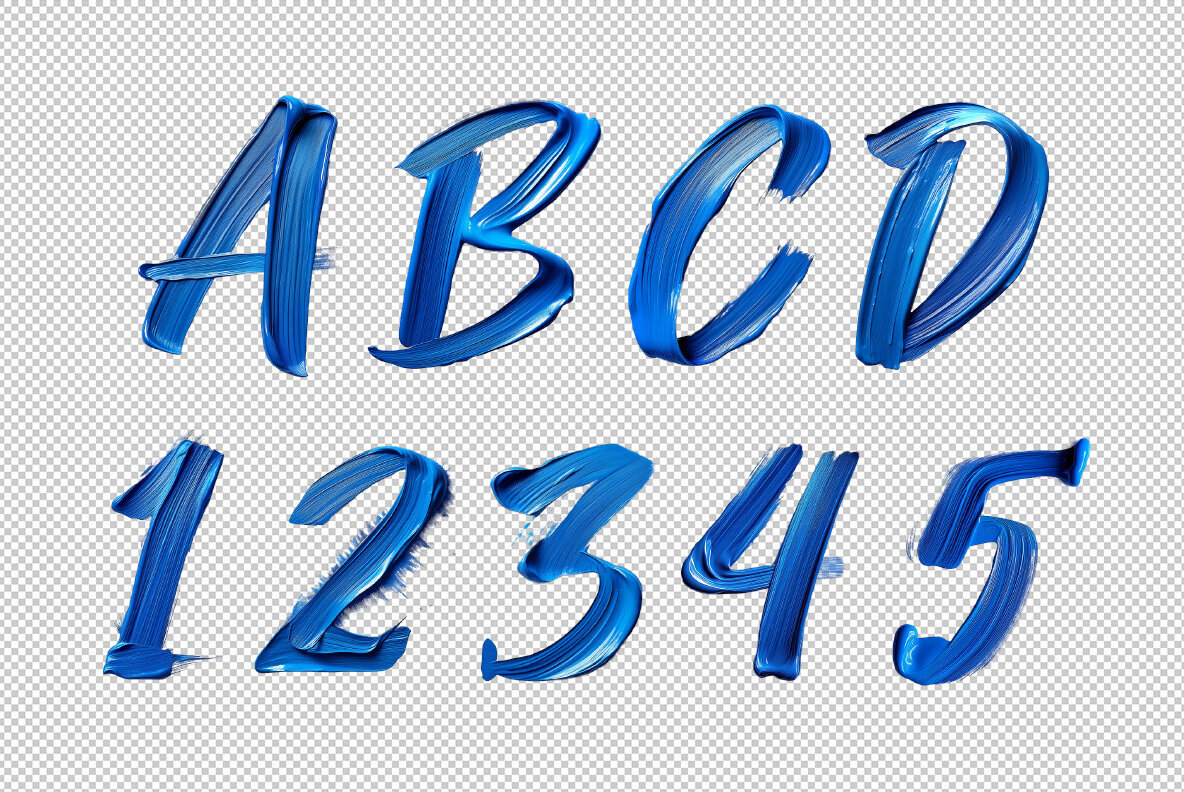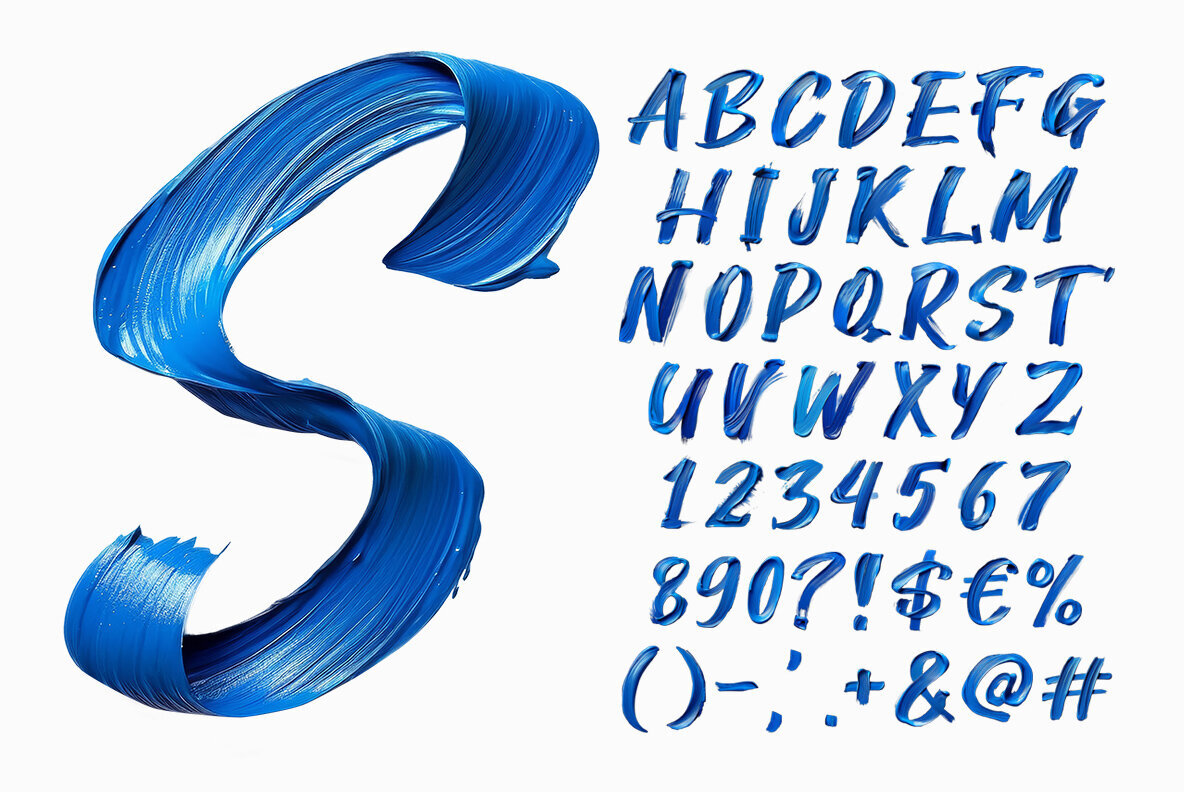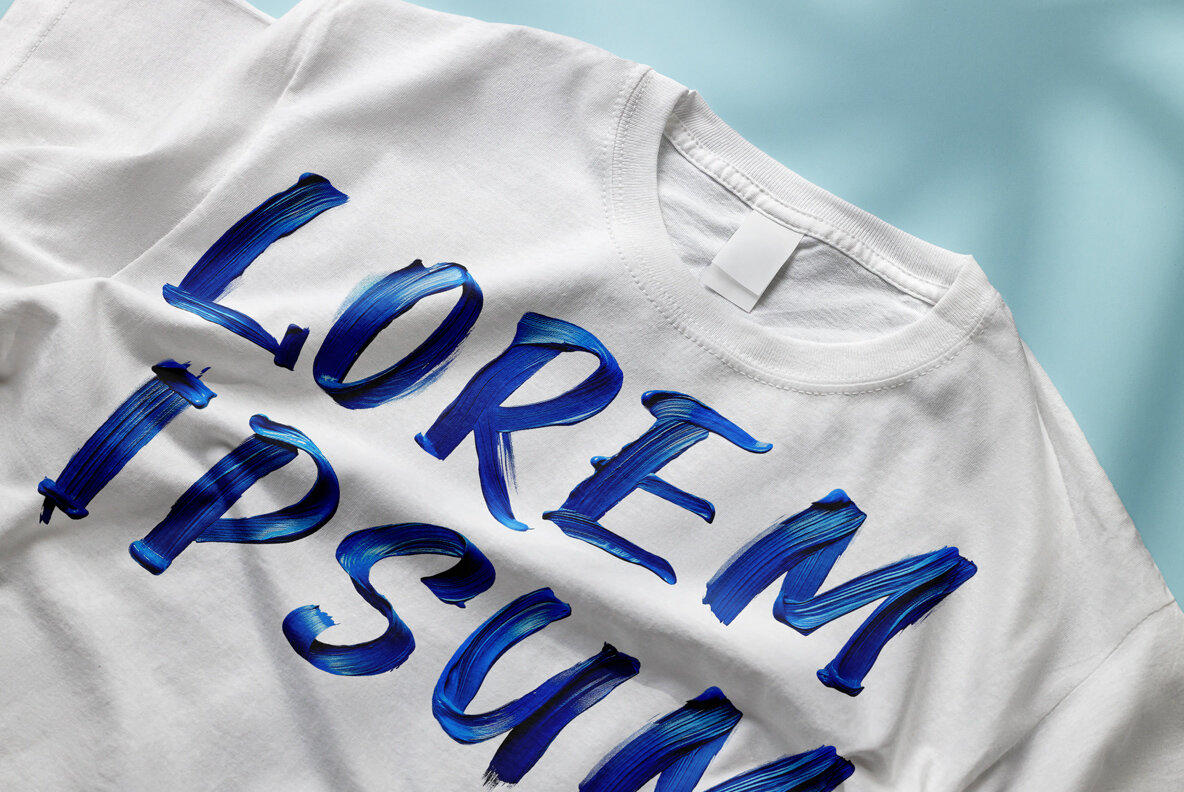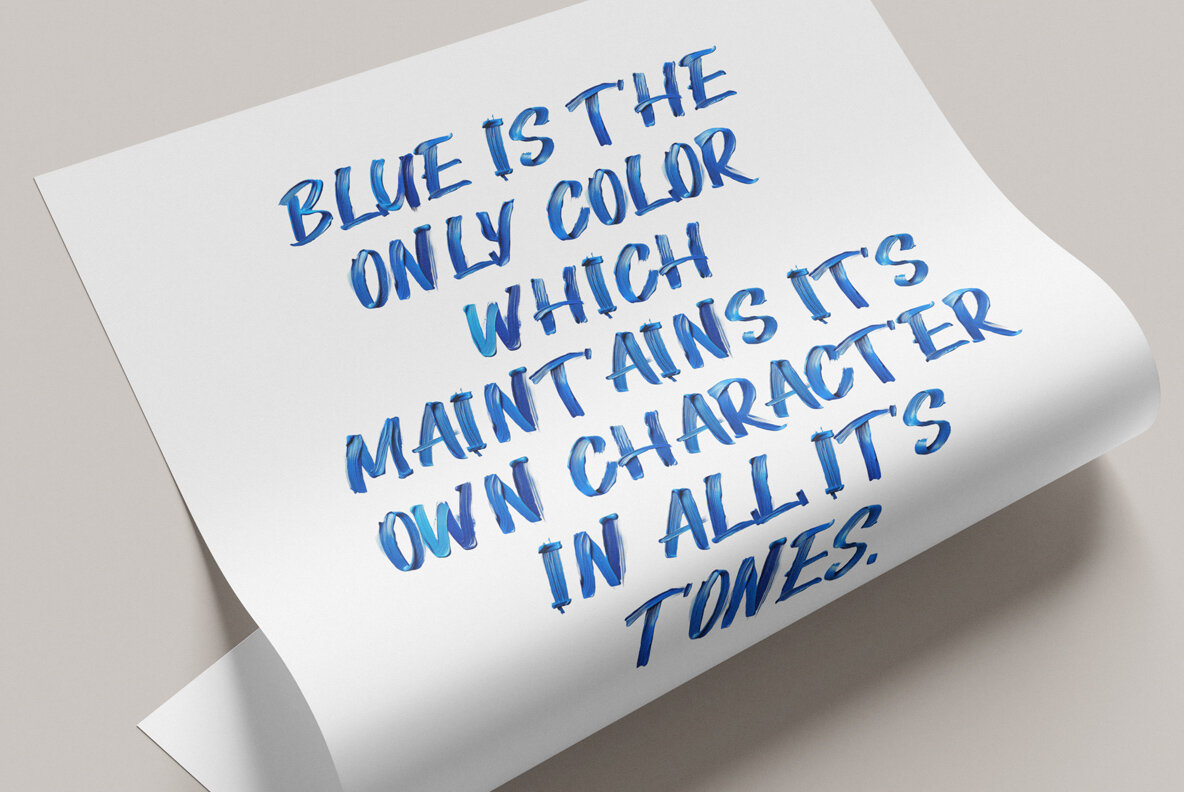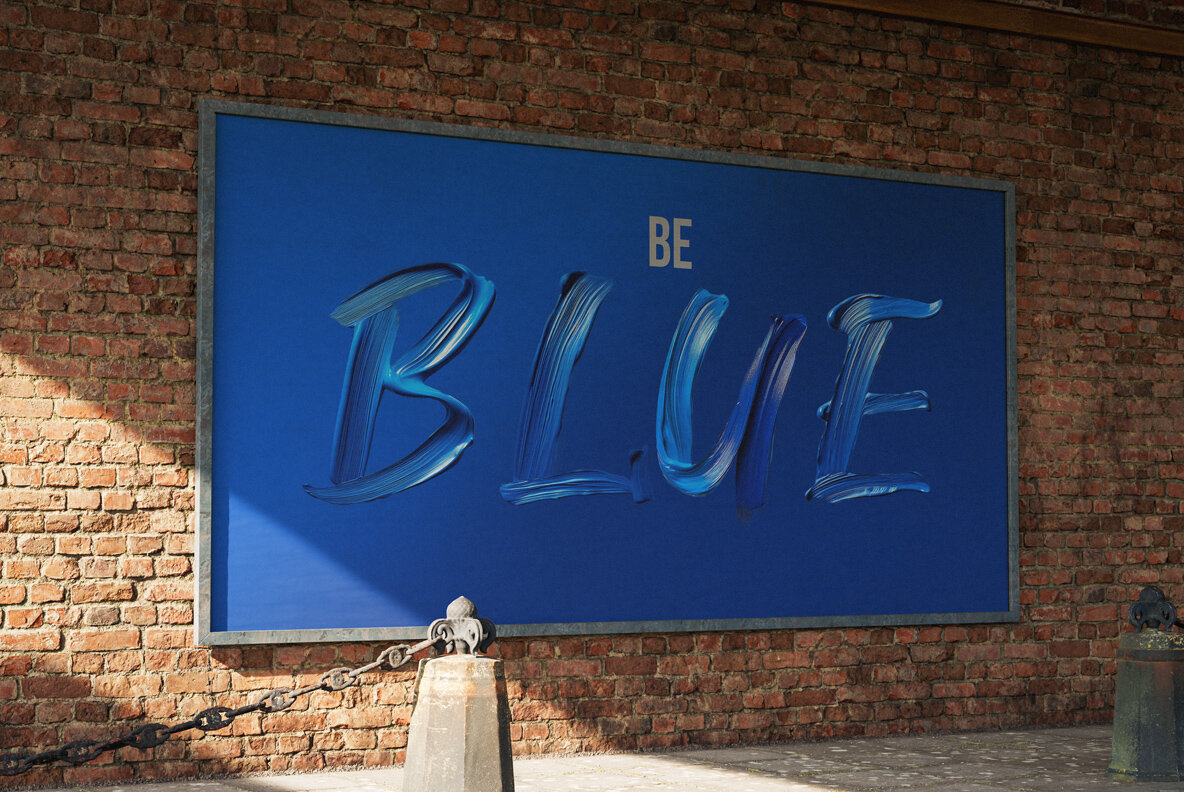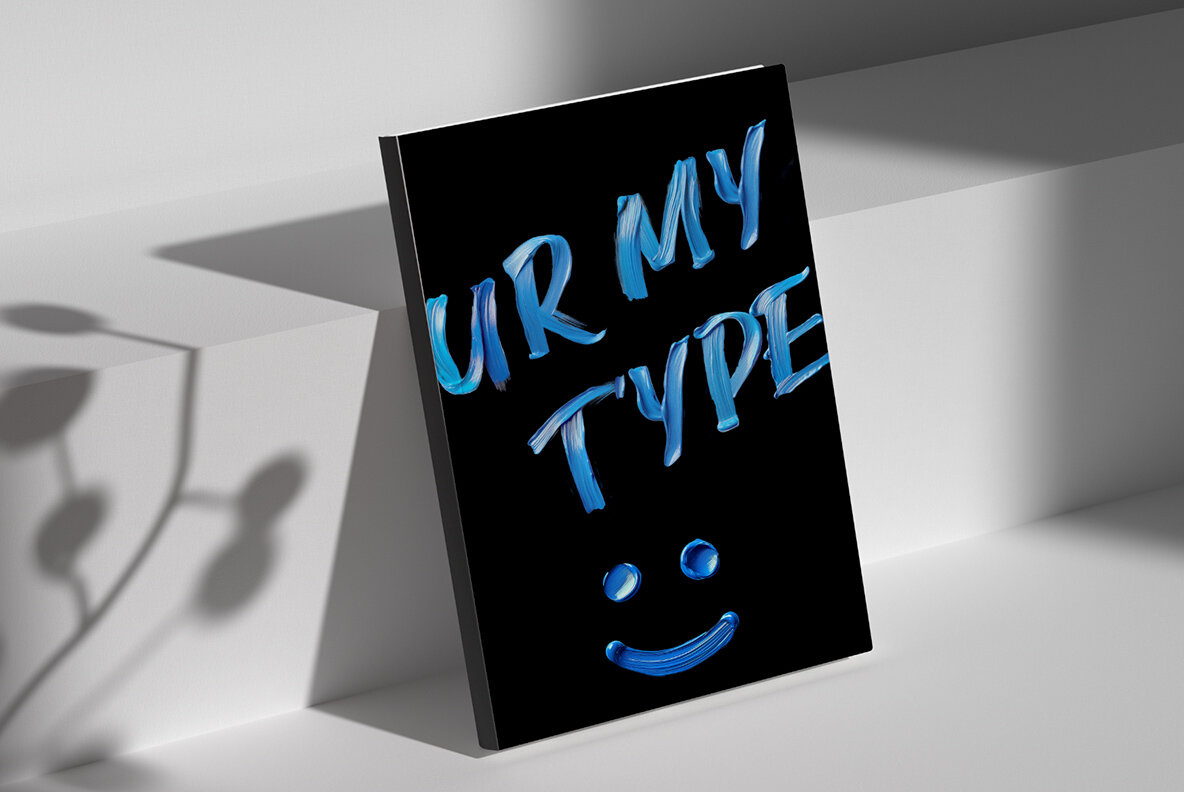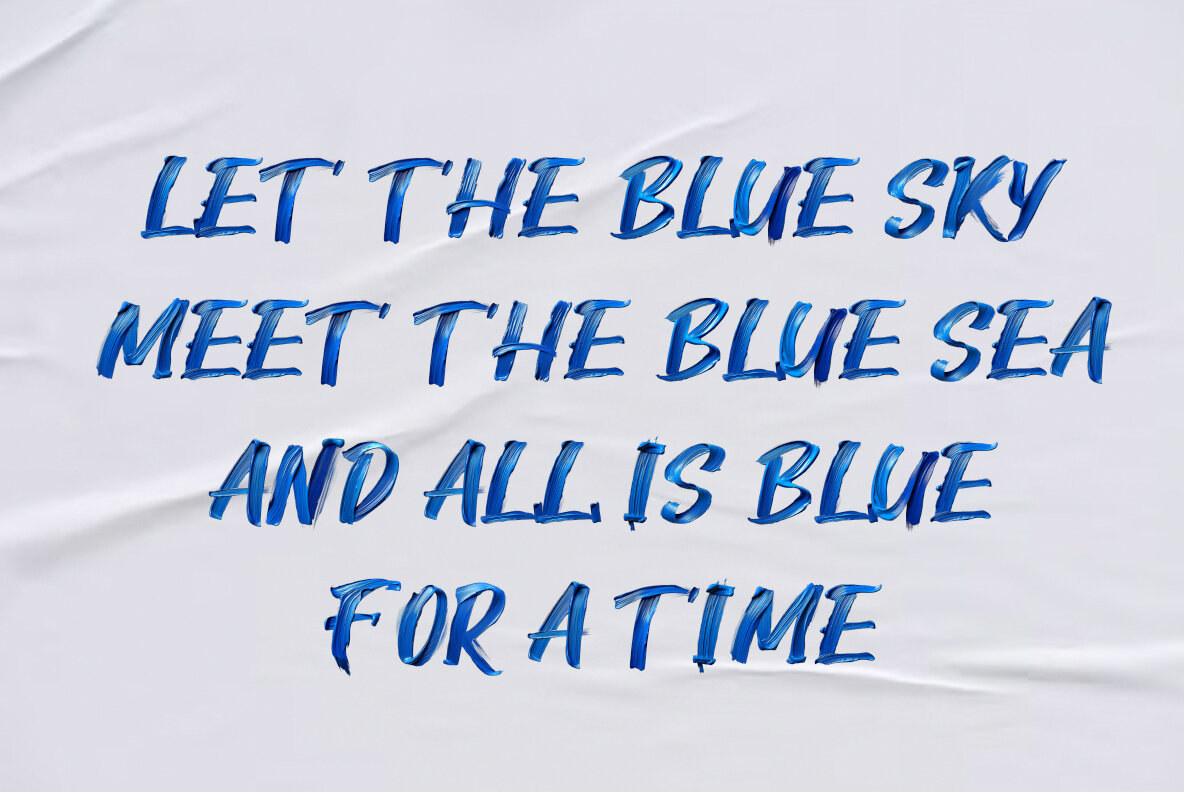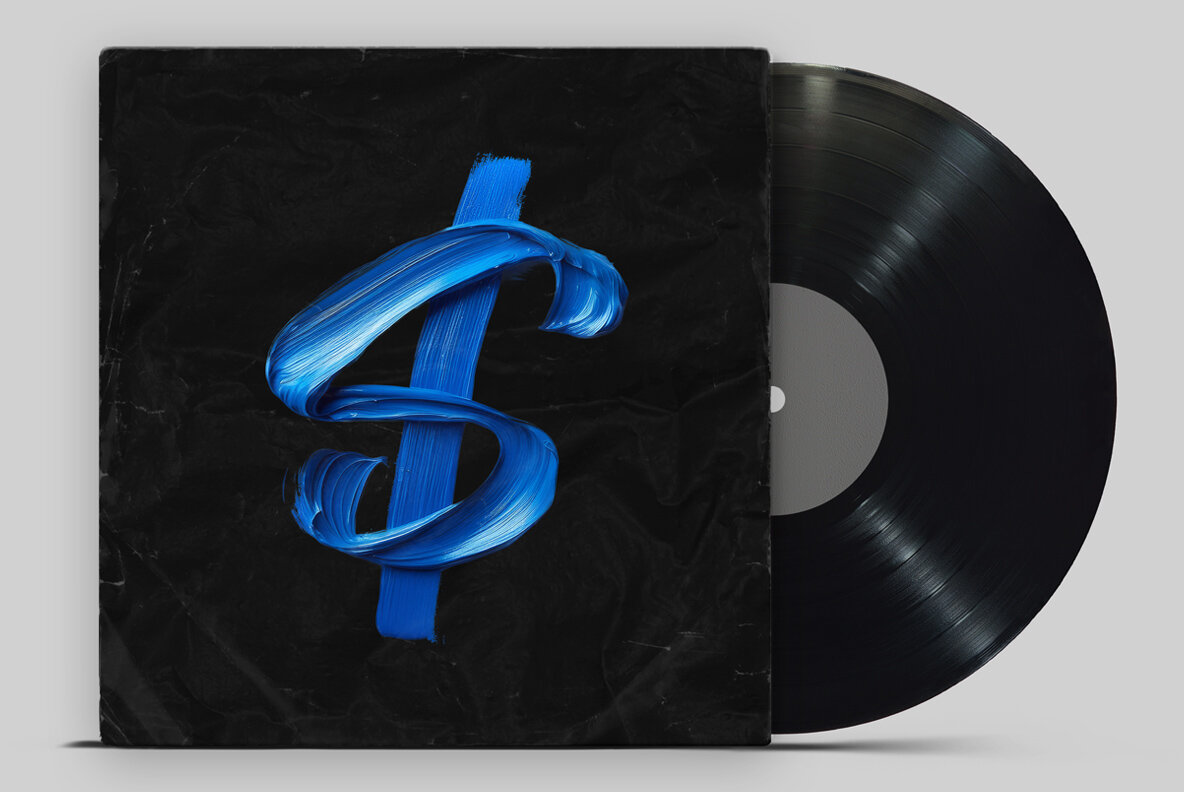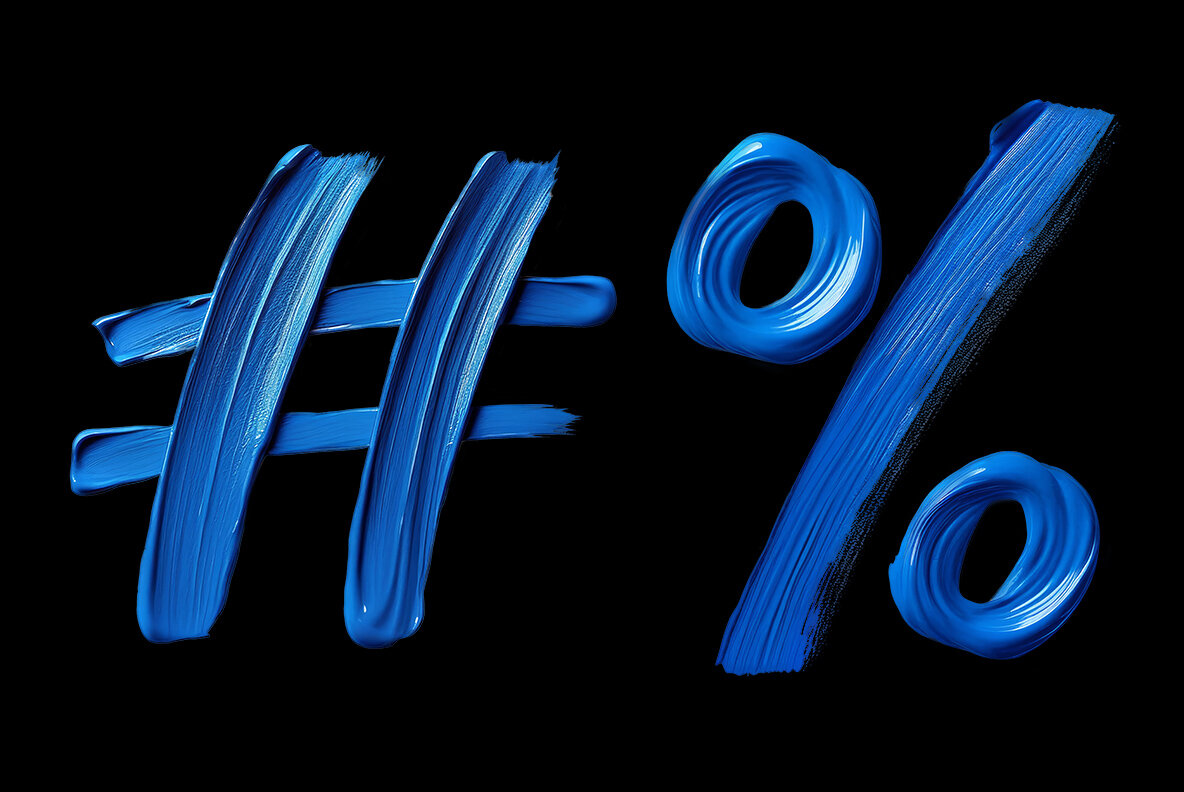
The Blue Paint Stroke Font is a high-definition color OpenType font that brings a unique artistic touch to your designs. Featuring uppercase characters, numerals, and basic punctuation, this font is perfectly suited for a range of creative projects. With a draw height of approximately 800 pixels, it delivers crisp, clear lettering in applications that support color bitmap fonts, such as Photoshop, Illustrator, InDesign, and more. Utilizing this typeface allows for seamless integration of vibrant letters into digital compositions, enhancing your visual presentations.